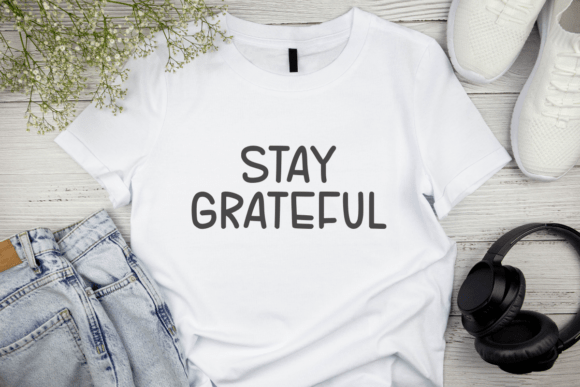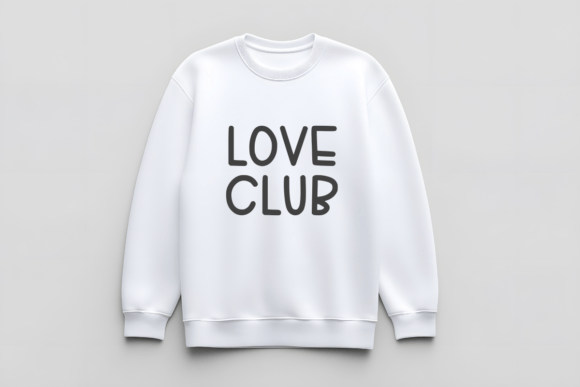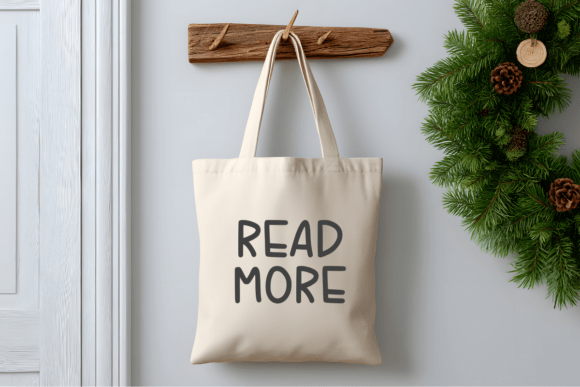
Introduction to Little Drum Font
Remember the thrill of holding a pen and scribbling away on a piece of paper, creating something entirely your own? That same sense of joy and freedom is exactly what the Little Drum Font captures in its unique, playful handwriting style. This charming font is more than just a design element – it’s a tool that brings personality and warmth to any creative project.
For designers, the Little Drum Font is a valuable resource that offers a high-quality, free download option perfect for crafting engaging graphics with a handmade touch. Its transparent background and sturdy construction make it an ideal choice for designing materials with a clear, purposeful look, from children’s book covers to social media graphics.
Key Features of Little Drum Font
- High-quality design resource for creative projects, suitable for various applications such as logos, posters, and advertising materials.
- Features a unique and playful style, perfect for adding a touch of whimsy to your design.
Honest Review: Little Drum Font
I recently came across the Little Drum Font and was immediately drawn to its unique, hand-drawn feel. As a designer, I’m always on the lookout for high-quality design resources to elevate my creative projects.
One of the standout features of the Little Drum Font is its high-quality design, which is perfect for use in a variety of contexts, from logos to print materials. The font is also available for free download, making it a great option for designers on a budget.
Here are some of the things that work well:
- ✨ Unique, hand-drawn feel that adds a touch of personality to any design
- ✨ High-quality design that is perfect for use in a variety of contexts
- ⚠️ The font only comes in a single weight, which may limit its versatility
Overall, I’m impressed with the Little Drum Font and would recommend it to designers looking for a unique and high-quality design resource for their creative projects.
Tips for Getting the Most Out of Little Drum Font
For the best results, use Little Drum Font in conjunction with other design resources, such as graphics and images. Experiment with different font sizes and colors to create a visually appealing design. You can also download a free version of Little Drum Font for personal or commercial use.
Little Drum Font is ideal for creative projects, such as logos, posters, and social media graphics. Its unique design and transparent background make it a popular choice for designers and artists. You can also use it in business presentations, flyers, and brochures to add a touch of creativity and style.